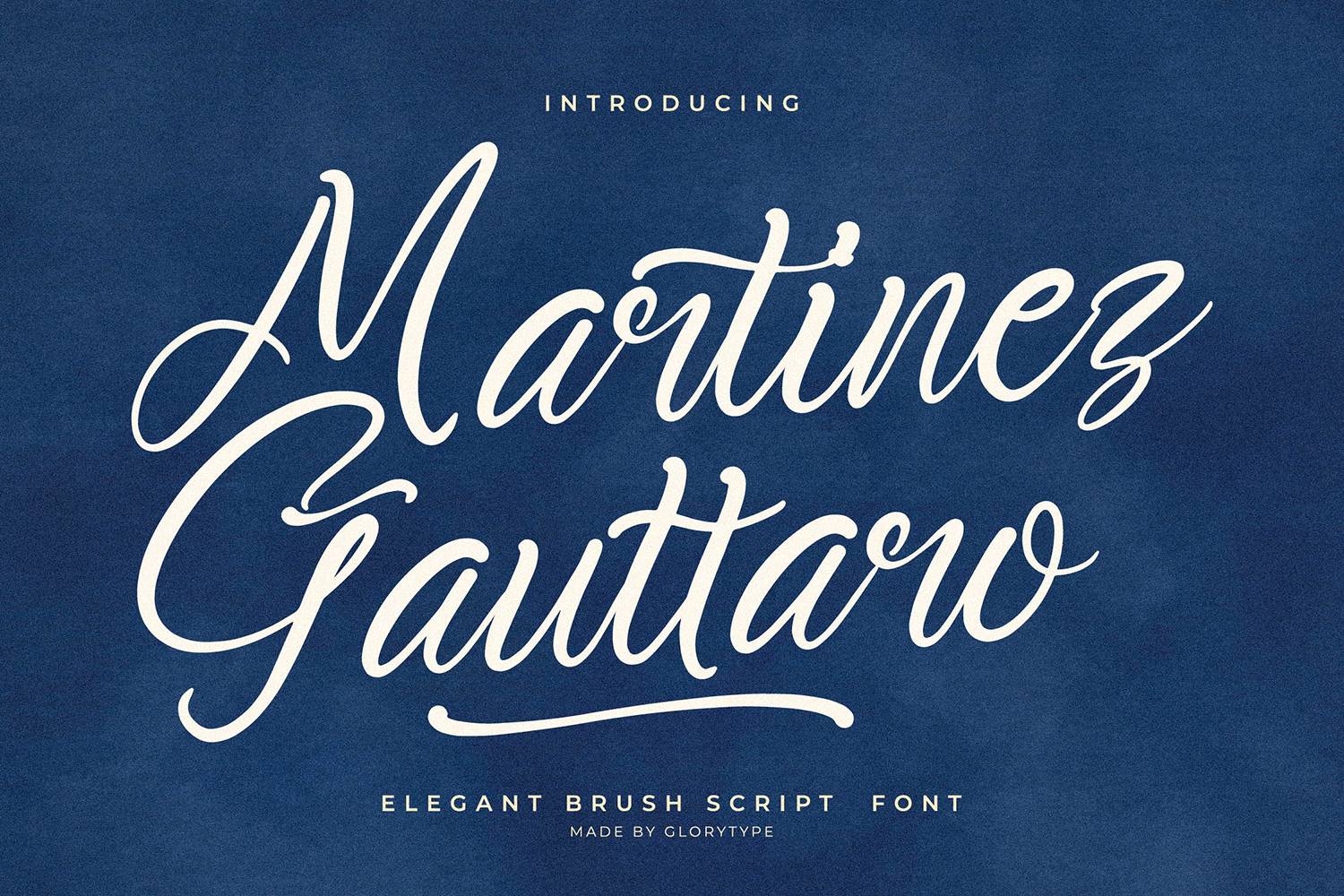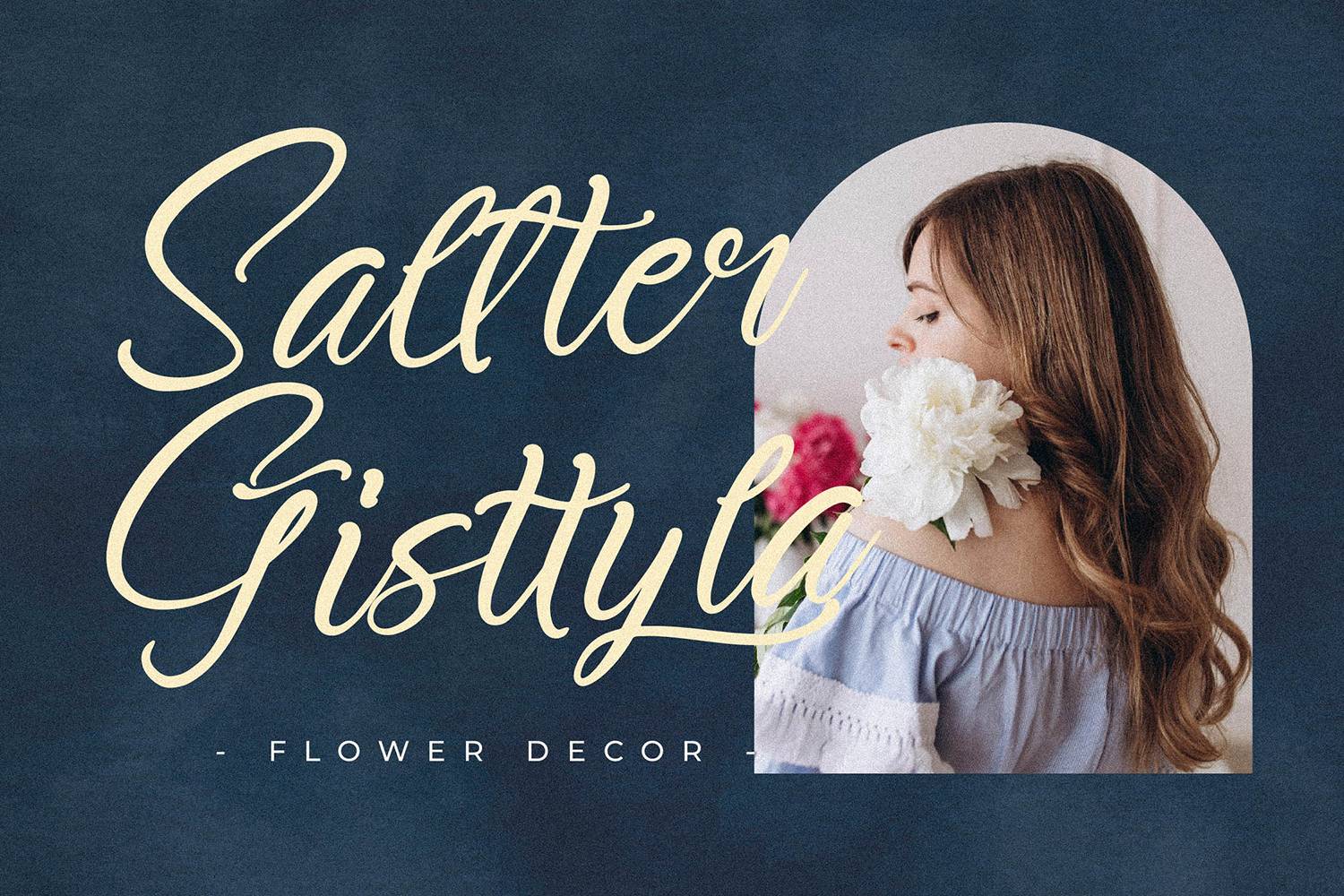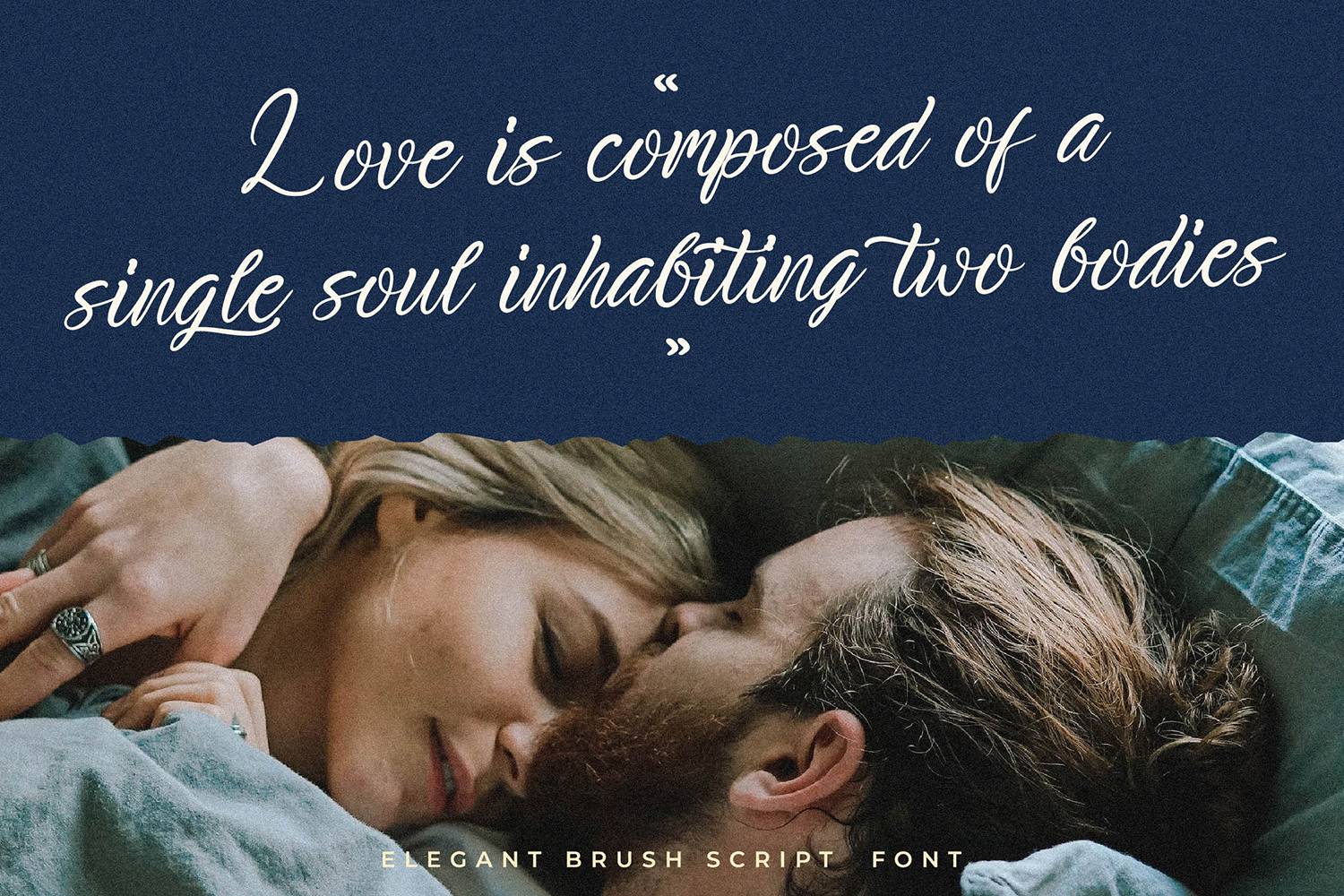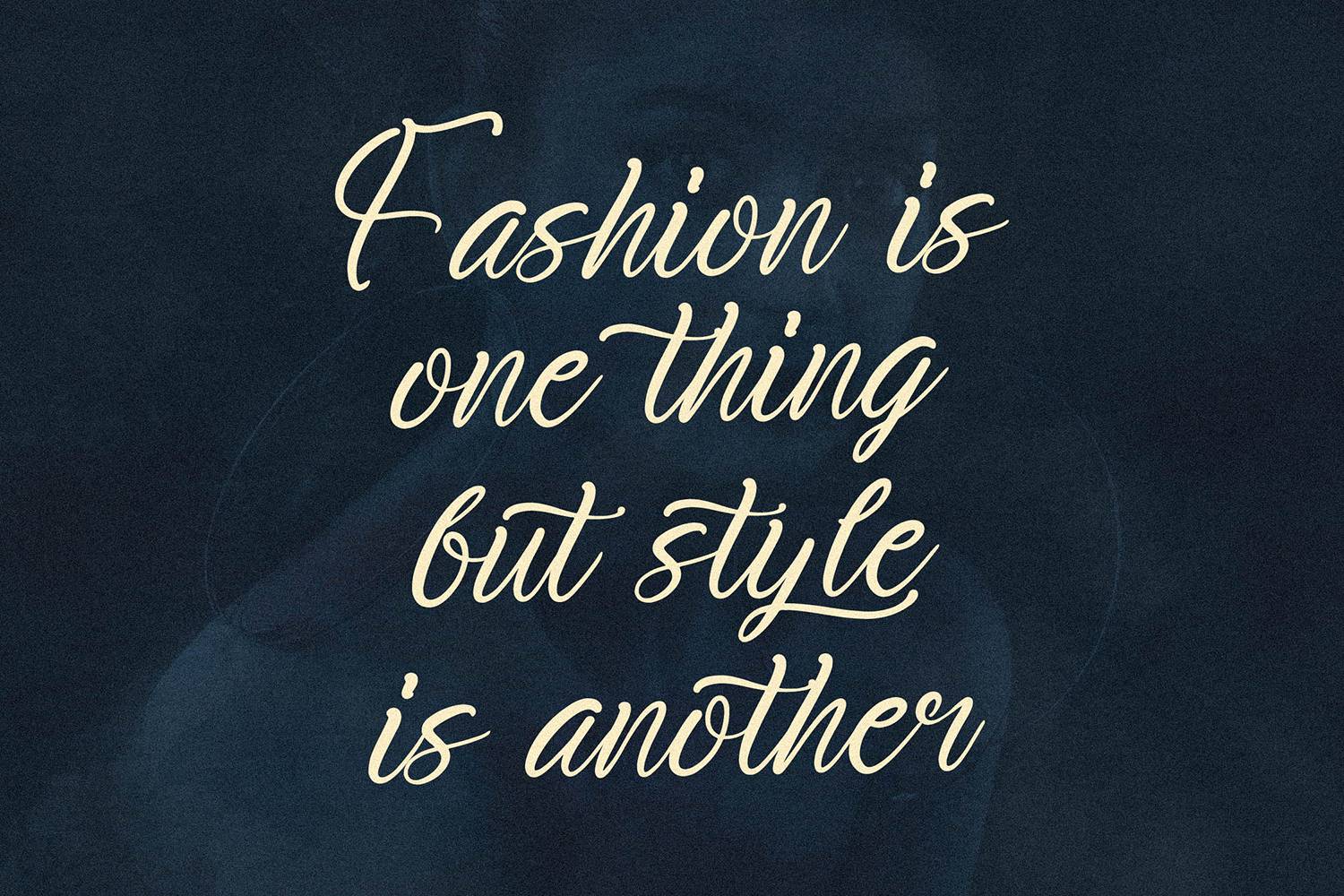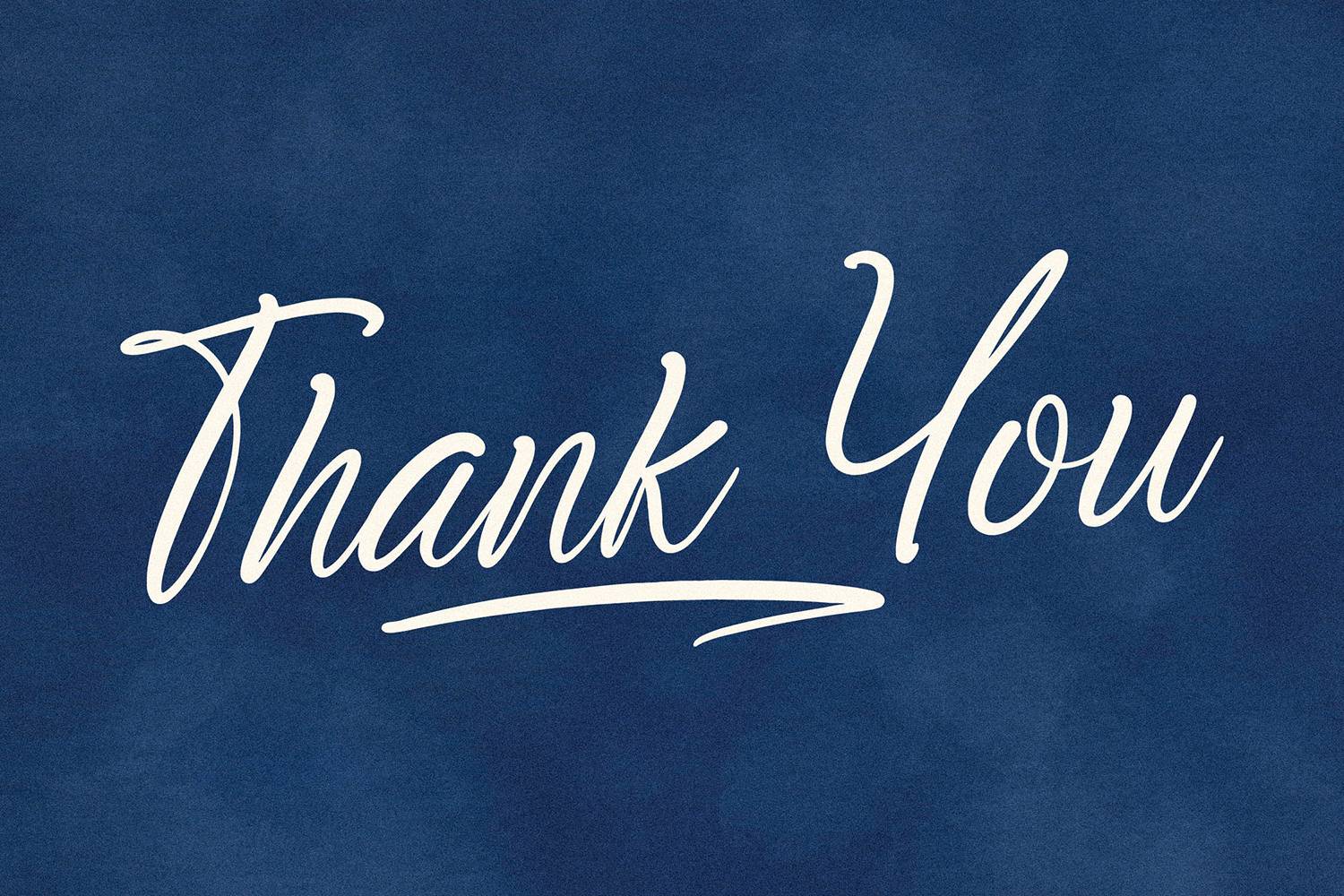
Martinez Gauttaro is an elegant script font with a refined and flowing design that mimics natural handwriting. Its slender stroke weight and graceful curves create a sophisticated and delicate feel, making it ideal for wedding invitations, luxury branding, and stylish editorial projects. This font shines in applications where a personal, artistic touch is desired, especially in headers and decorative text.
Martinez Gauttaro Font
About Martinez Gauttaro Font